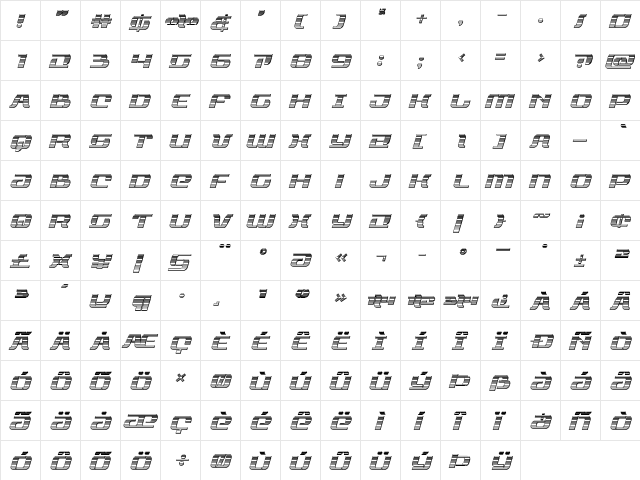
Range Paladin Chrome Italic Italic
Design Context for Range Paladin Chrome Italic Typeface
Range Paladin Chrome Italic is a composed and adaptable typeface that performs quietly and consistently across a wide range of design contexts. The slanted form adds forward momentum and visual energy.
Pro Tip: Try Range Paladin Chrome Italic for annotation and caption copy alongside an upright companion — the contrast in angle creates a dynamic but ordered typographic system.